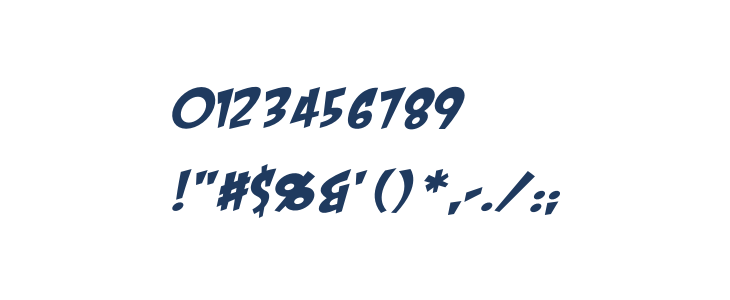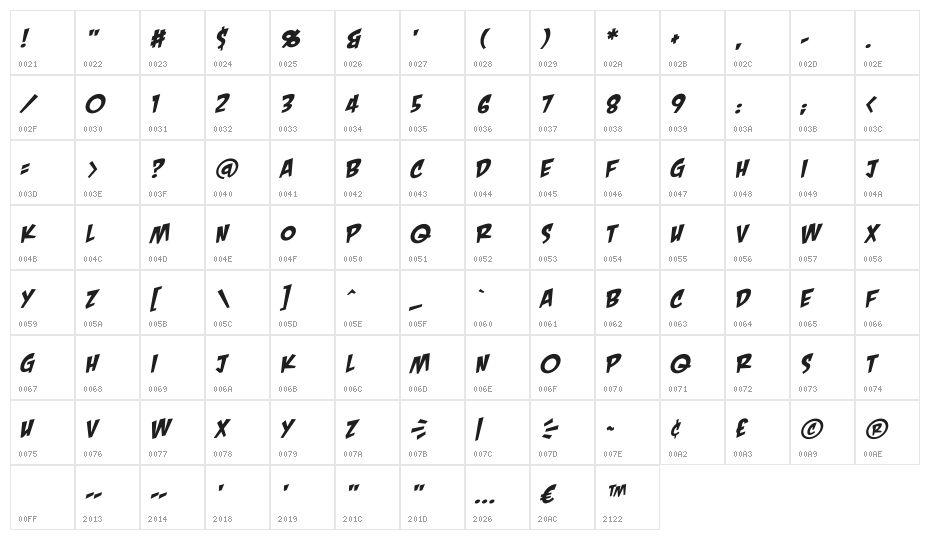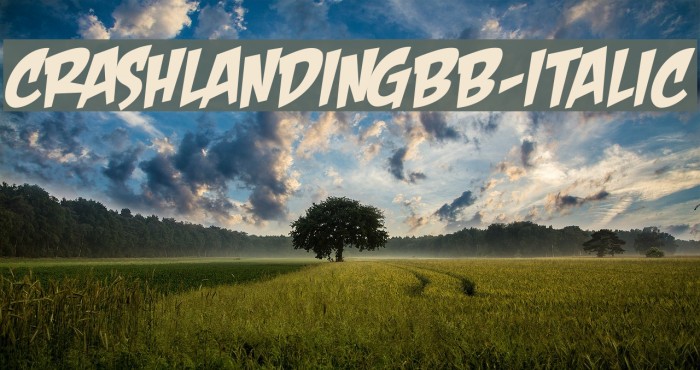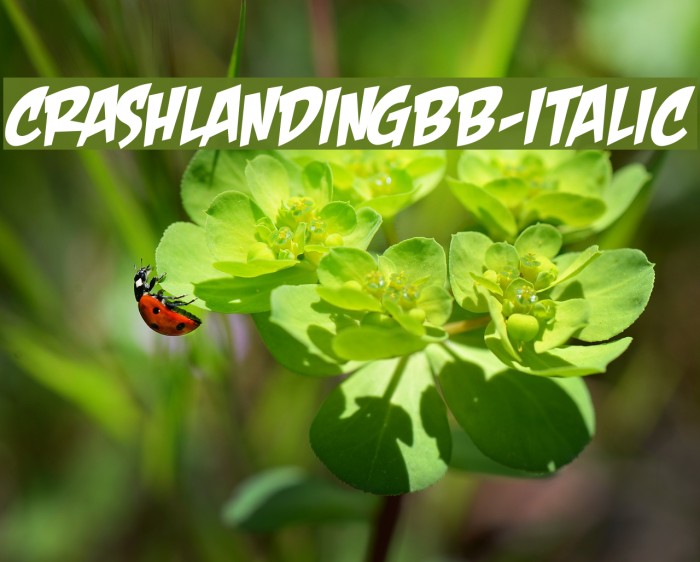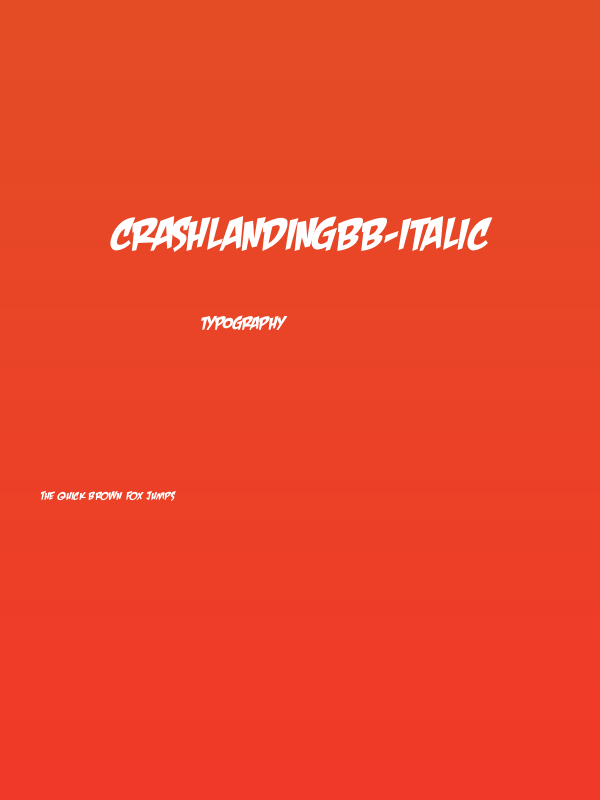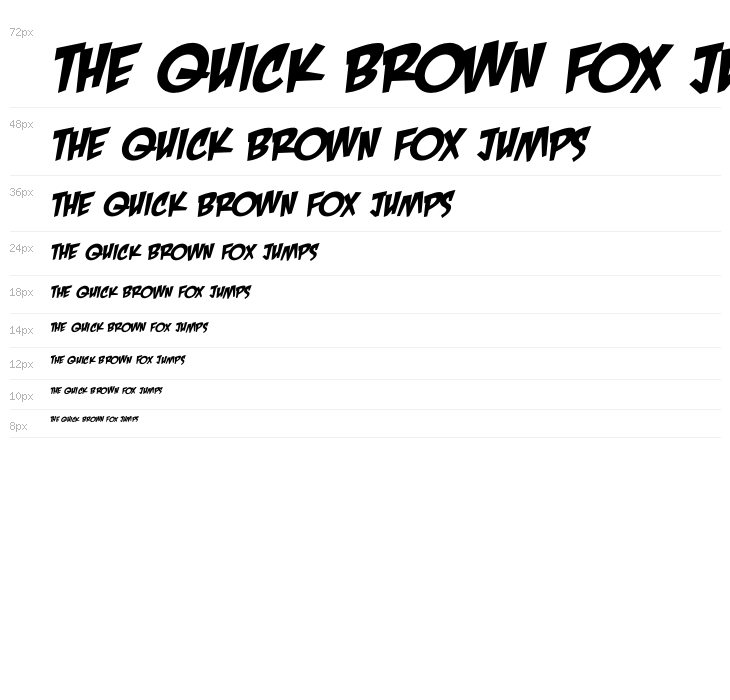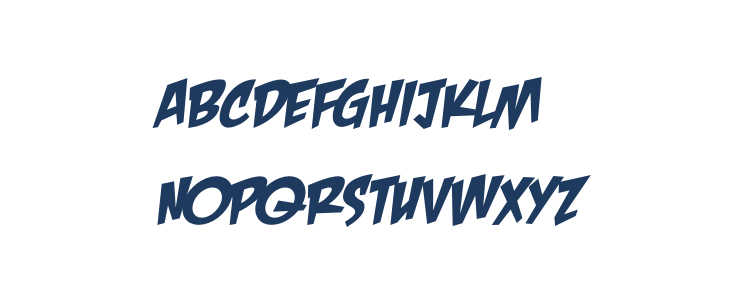
CrashLandingBB-Italic Font
CrashLandingBB-Italic Description
This font features a bold, dynamic style with a strong italic slant, giving it a sense of motion and energy. The characters are thick and robust, with sharp angles and a slightly condensed form. The uppercase and lowercase letters maintain a consistent style, with a playful yet aggressive appearance. The numbers and special characters follow the same bold and italicized design, ensuring uniformity across all glyphs. This font is ideal for projects that require a striking and impactful visual presence.
| Proposed Projects | Ideal for comic book titles, action-themed posters, video game graphics, and dynamic branding materials. |